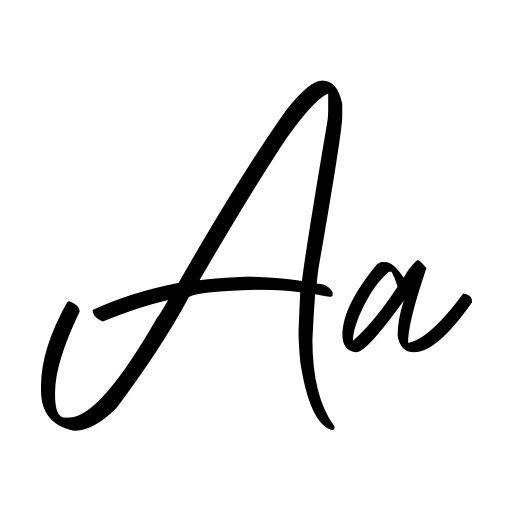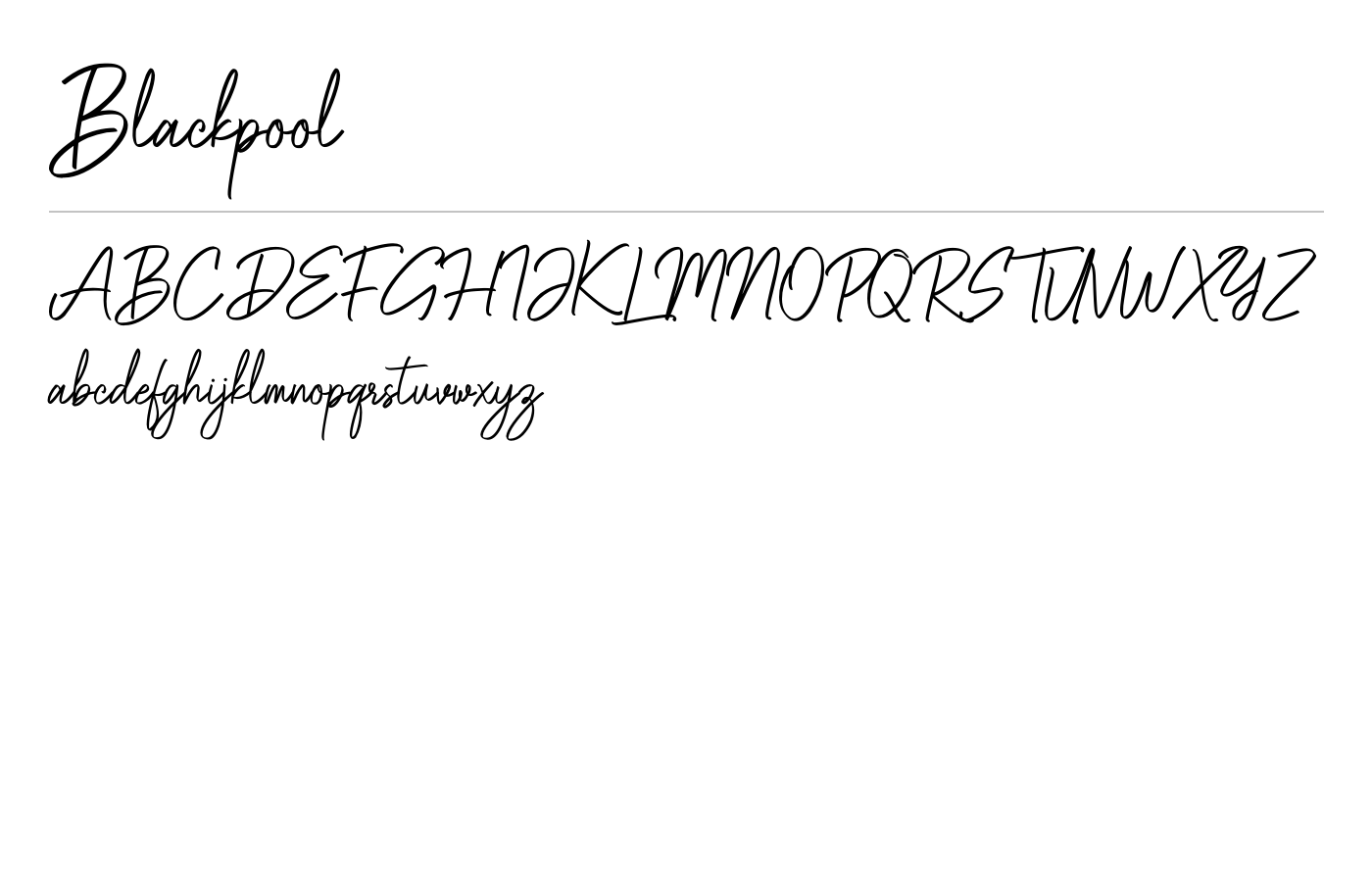
Blackpool is a stylish handwritten script font with a delicate, elegant touch, featuring slender strokes and a natural, flowing rhythm. Its tall, narrow letterforms and smooth curves give it a personal, sophisticated feel, making it ideal for invitations, branding, and creative projects that seek a graceful yet modern handwritten look. This font works beautifully for designs that want to convey warmth and charm with a refined, artistic flair.
Blackpool Font
About Blackpool Font
| Font family | Blackpool Font |